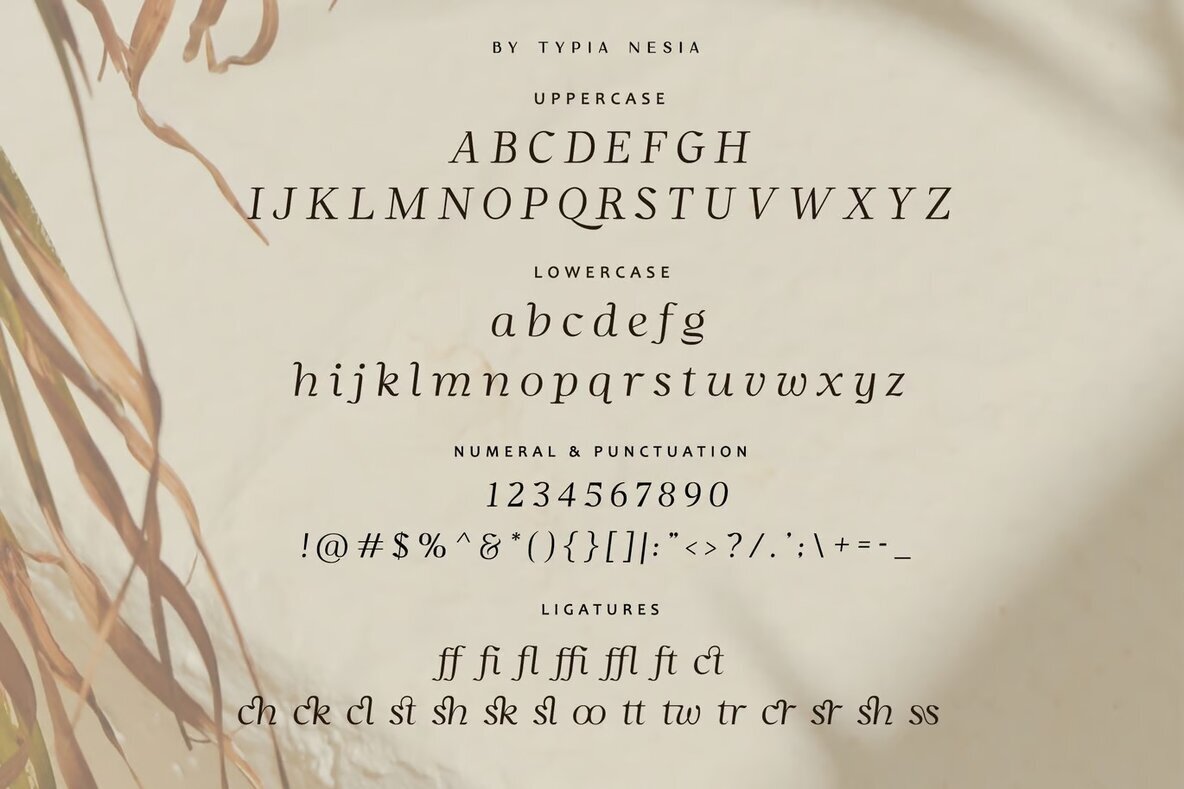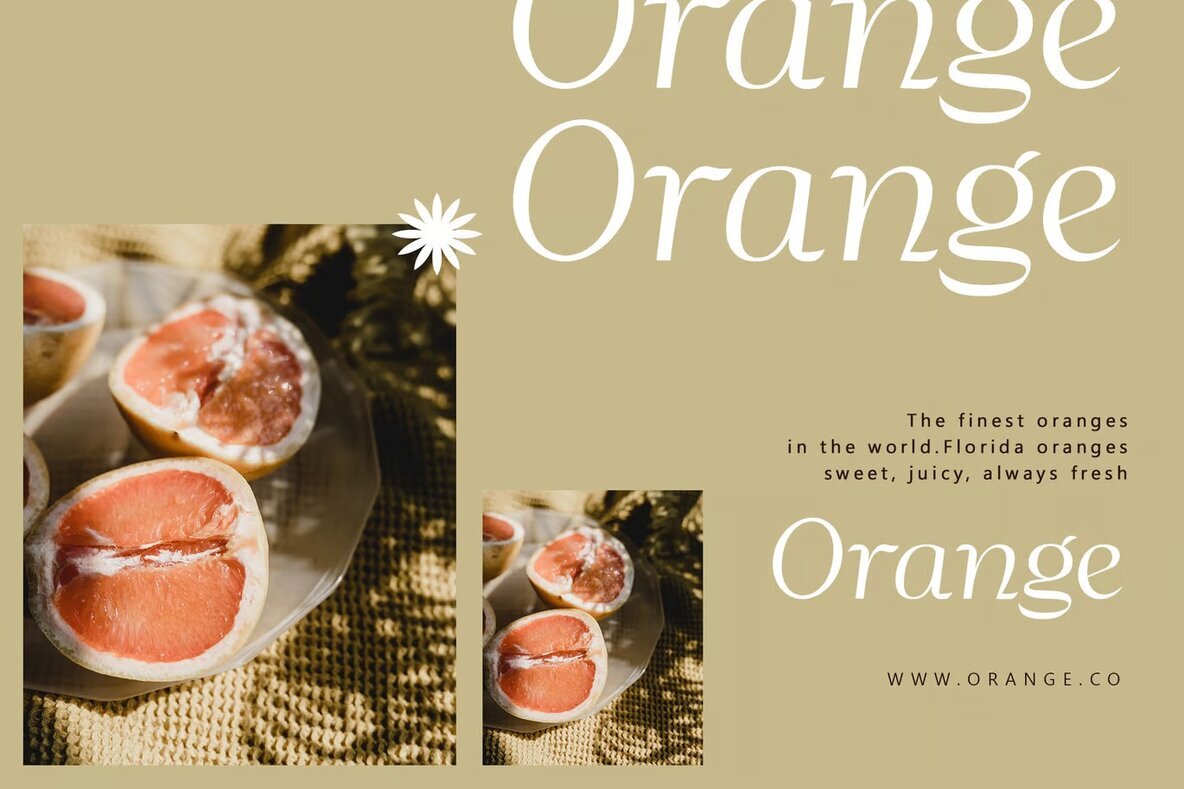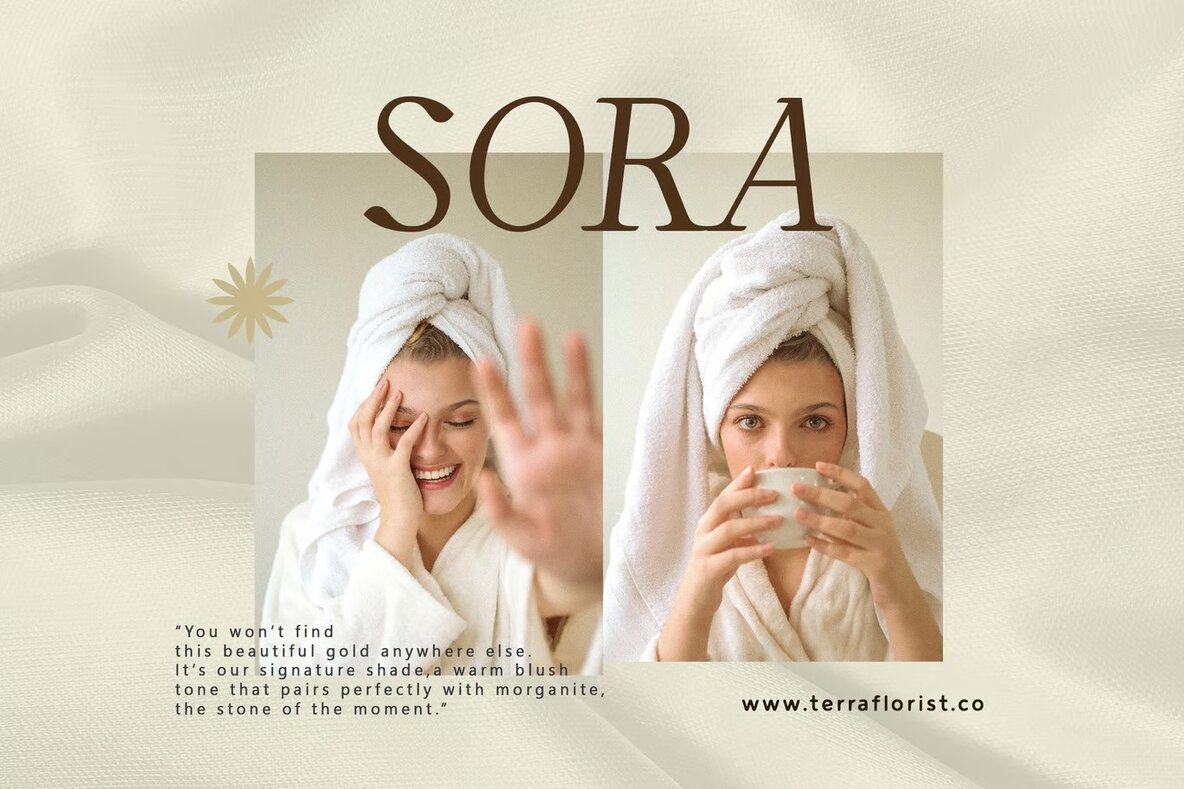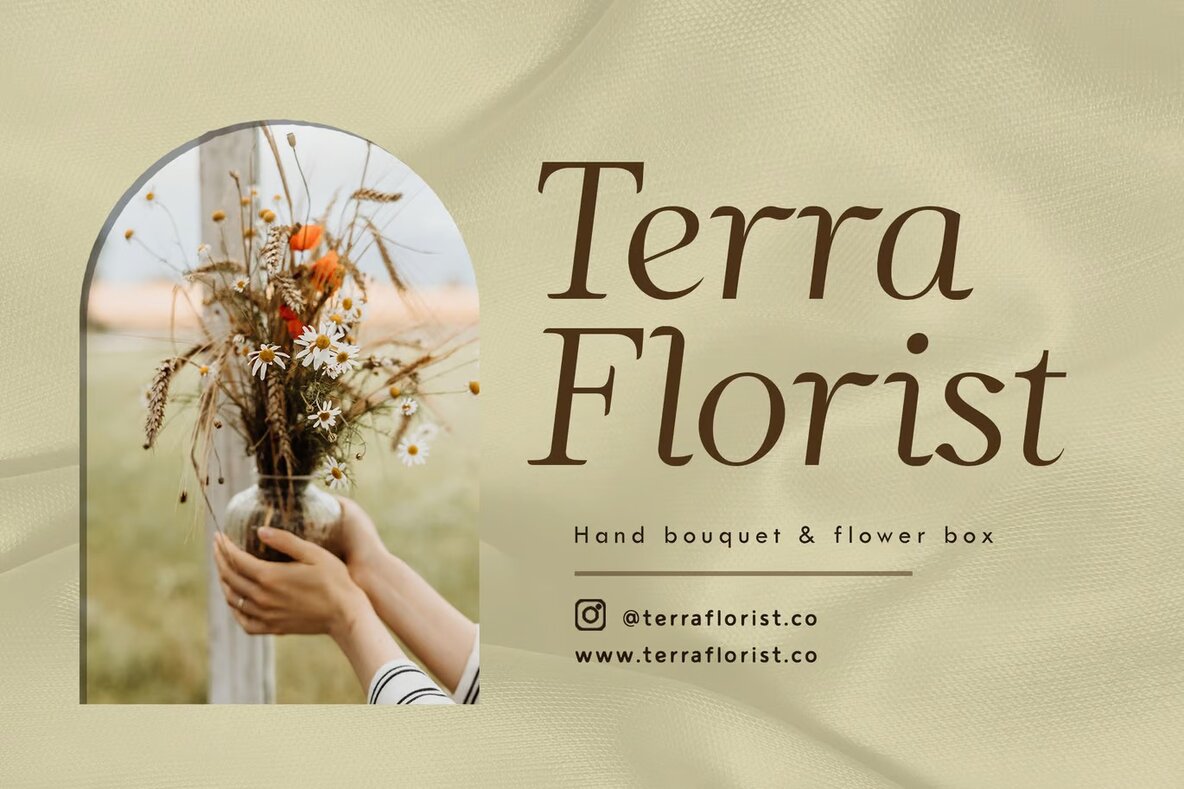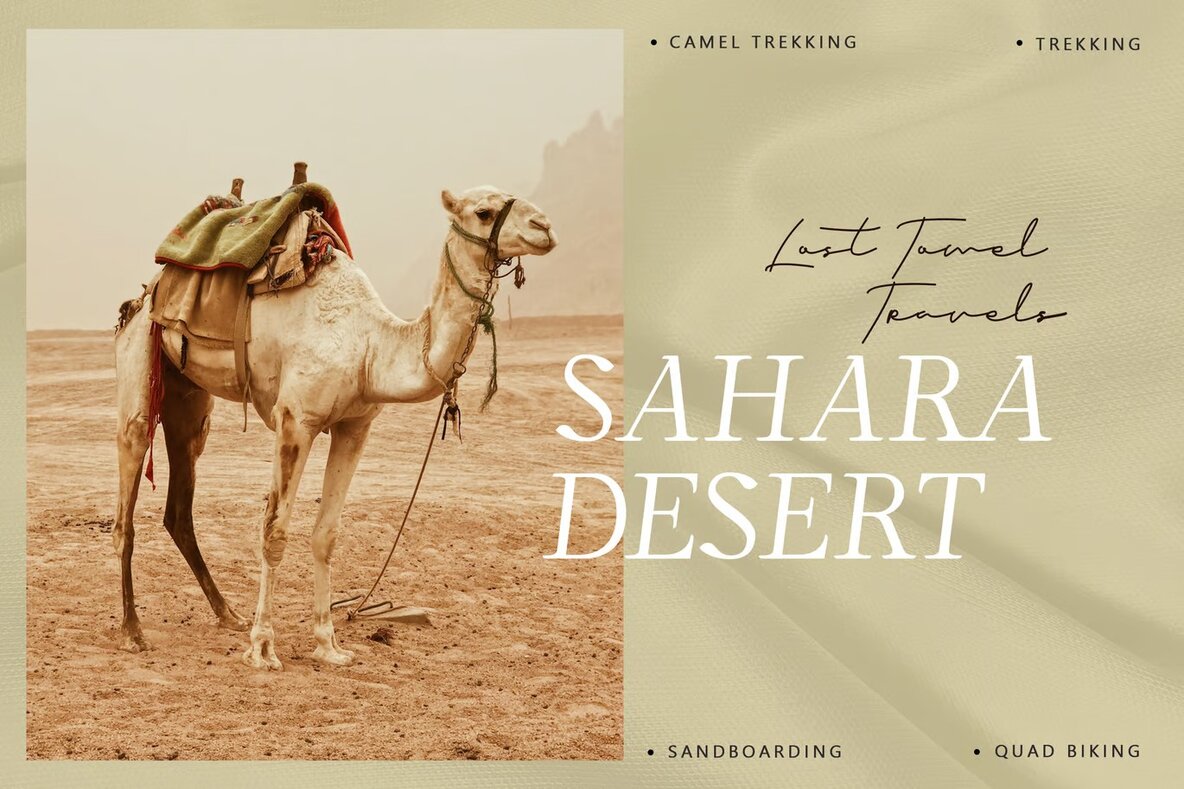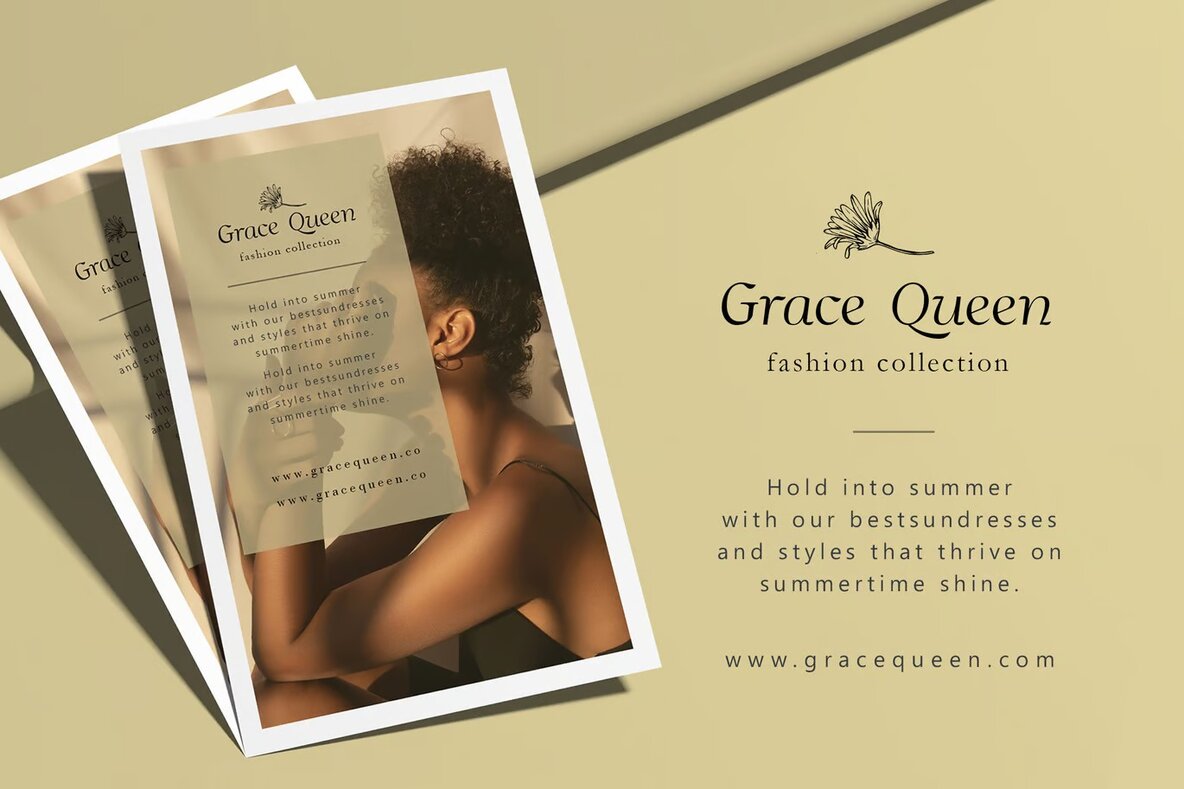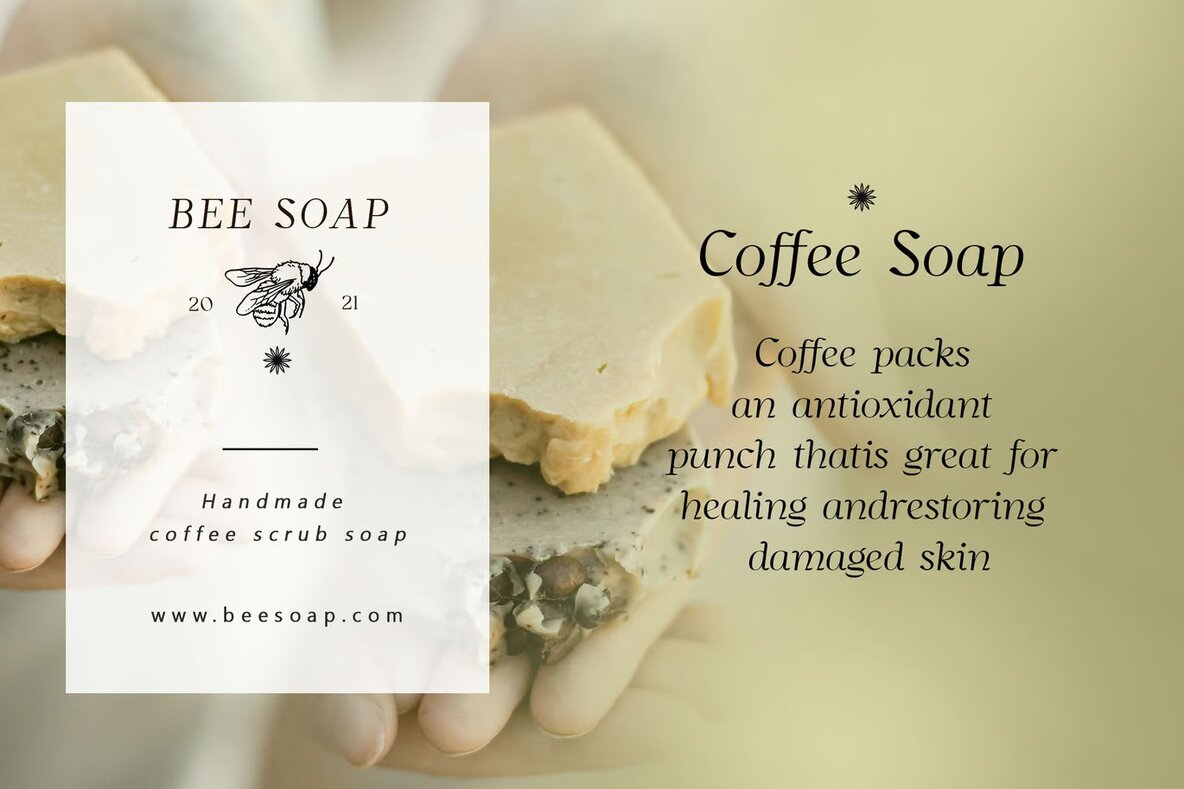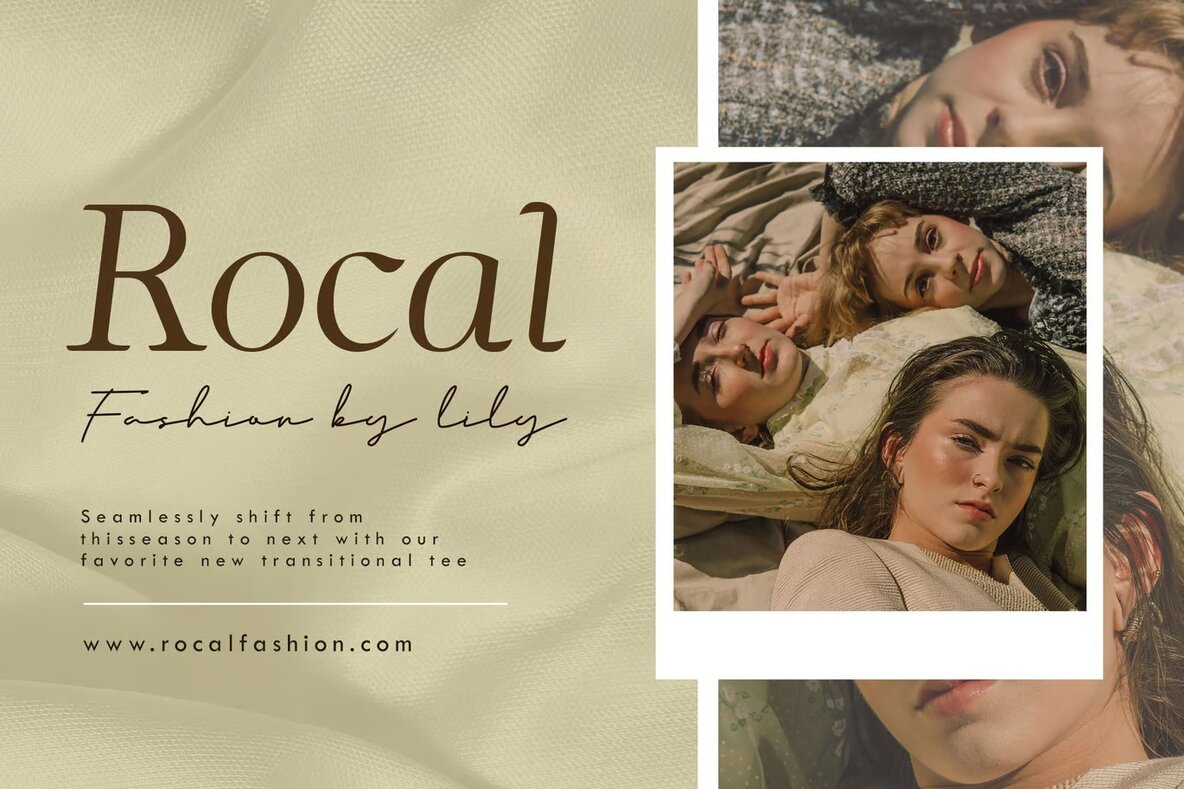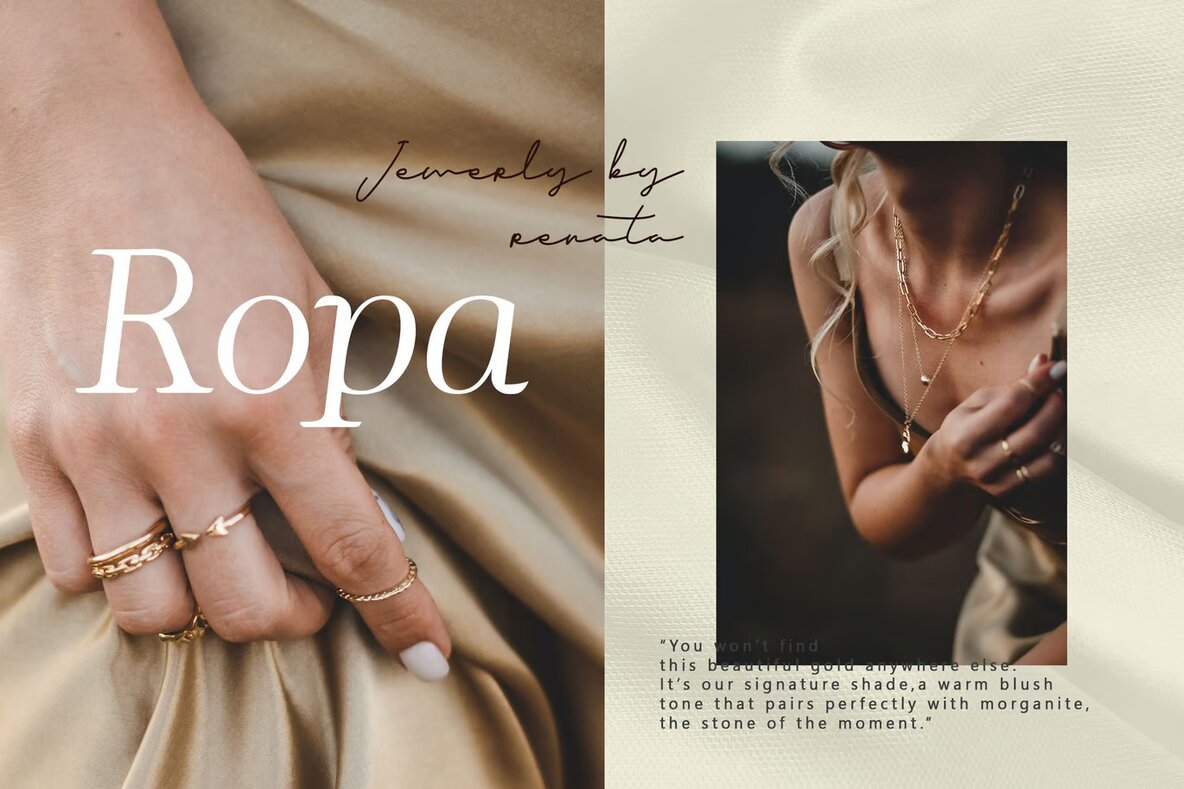
Grace Queen Font
Grace Queen Italic
Grace Queen is a sophisticated, modern italic serif font designed to add elegance and style to your projects. With its expressive and classy demeanor, Grace Queen features a set of thoughtfully crafted alternates and ligatures, allowing for versatile typography design. It's ideal for luxury logos, branding initiatives, editorial designs, and more, particularly appealing to projects that seek to convey a sense of glamour and beauty.
This font is an excellent choice for a wide range of applications, including women's magazines, cosmetic brands, and fashion promotions. Additionally, it complements art gallery branding, museum features, and historical or architectural endeavors. Grace Queen can enhance boutique branding, stationery, blogs, advertising, invitation cards, and art quotes. Its unique flair also makes it suitable for home decor, book covers, special events, and beyond, providing a stylish solution for diverse creative needs.